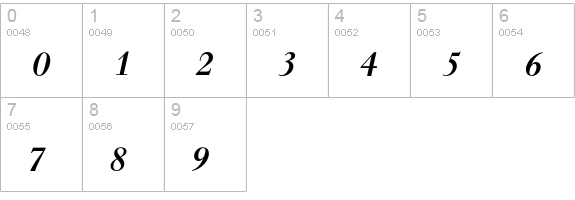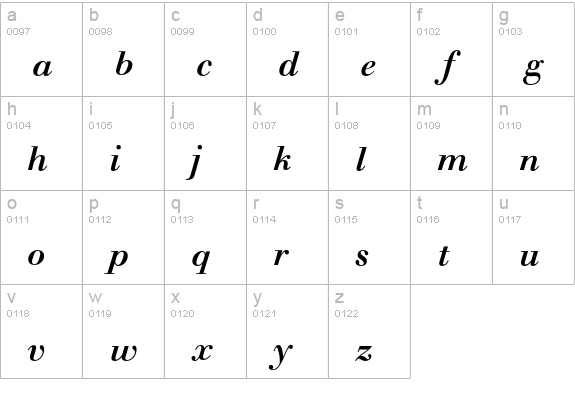
Walbaum Medium Italic is a balanced, medium-weight, italic variant in the Walbaum typeface family \xE2\x80\x94 well suited to sub-headlines, navigation, and balanced editorial work.
Walbaum Medium Italic font is a stunning and elegant typeface that exudes sophistication and grace. With its sleek and flowing curves, this font is perfect for adding a touch of refinement to any design project. The medium weight strikes a perfect balance between boldness and subtlety, making it versatile for a wide range of applications. The italic style adds a touch of flair and personality to the text, making it ideal for conveying a sense of creativity and uniqueness. Whether used in headlines, body text, or graphic design elements, Walbaum Medium Italic font is sure to make a statement. And the best part? This exquisite font is available for free download at FontsMarket.com. So go ahead and elevate your designs with the timeless beauty of Walbaum Medium Italic font today!